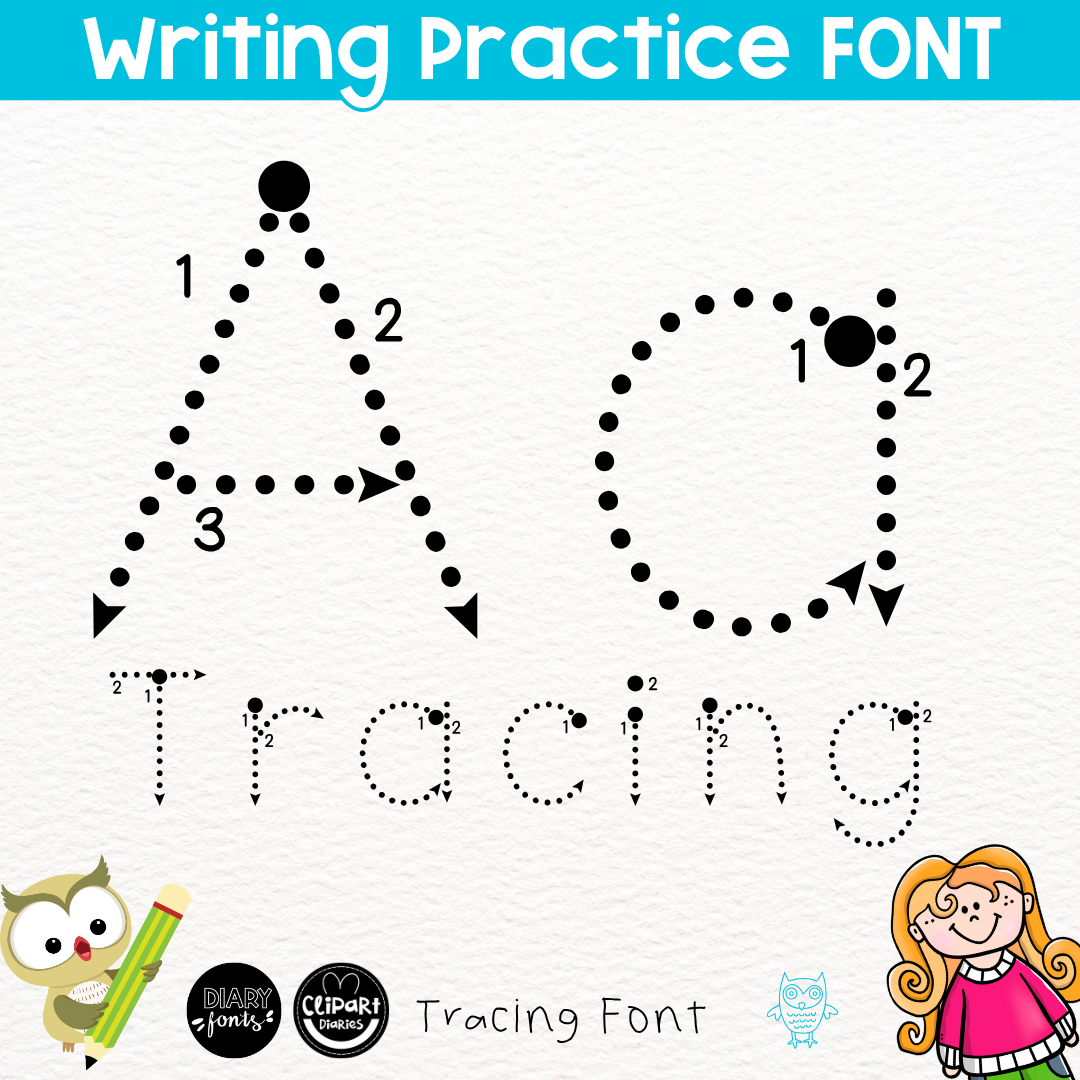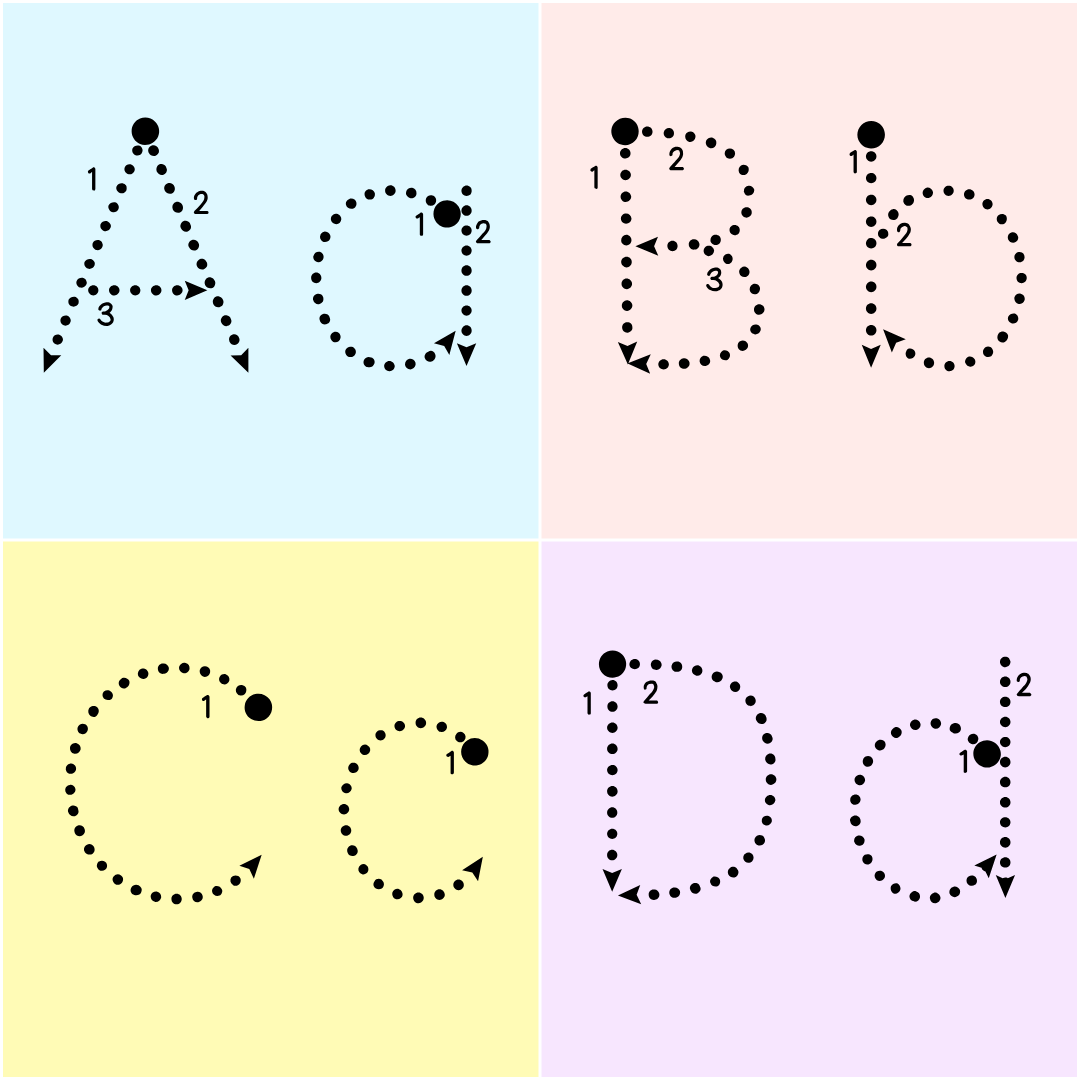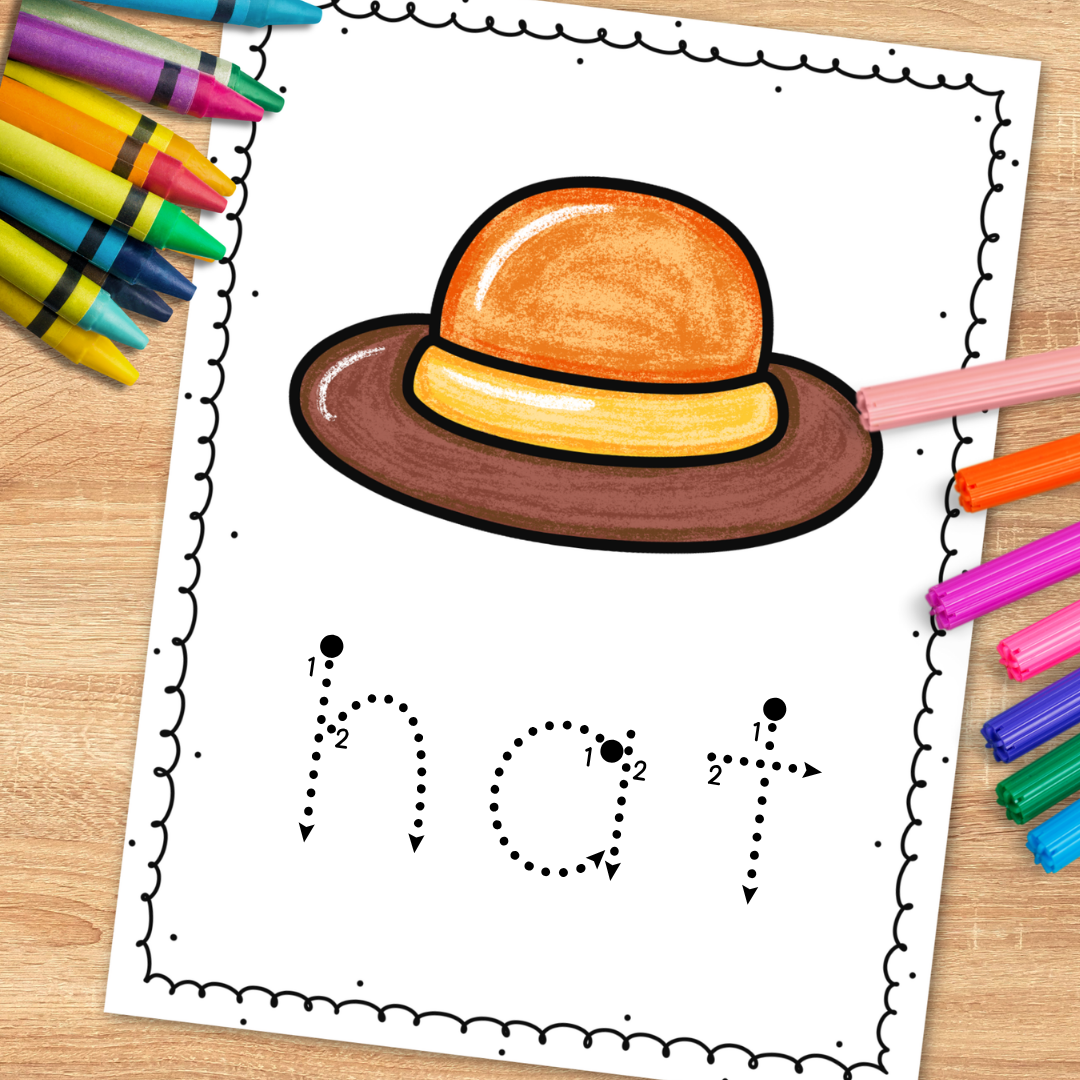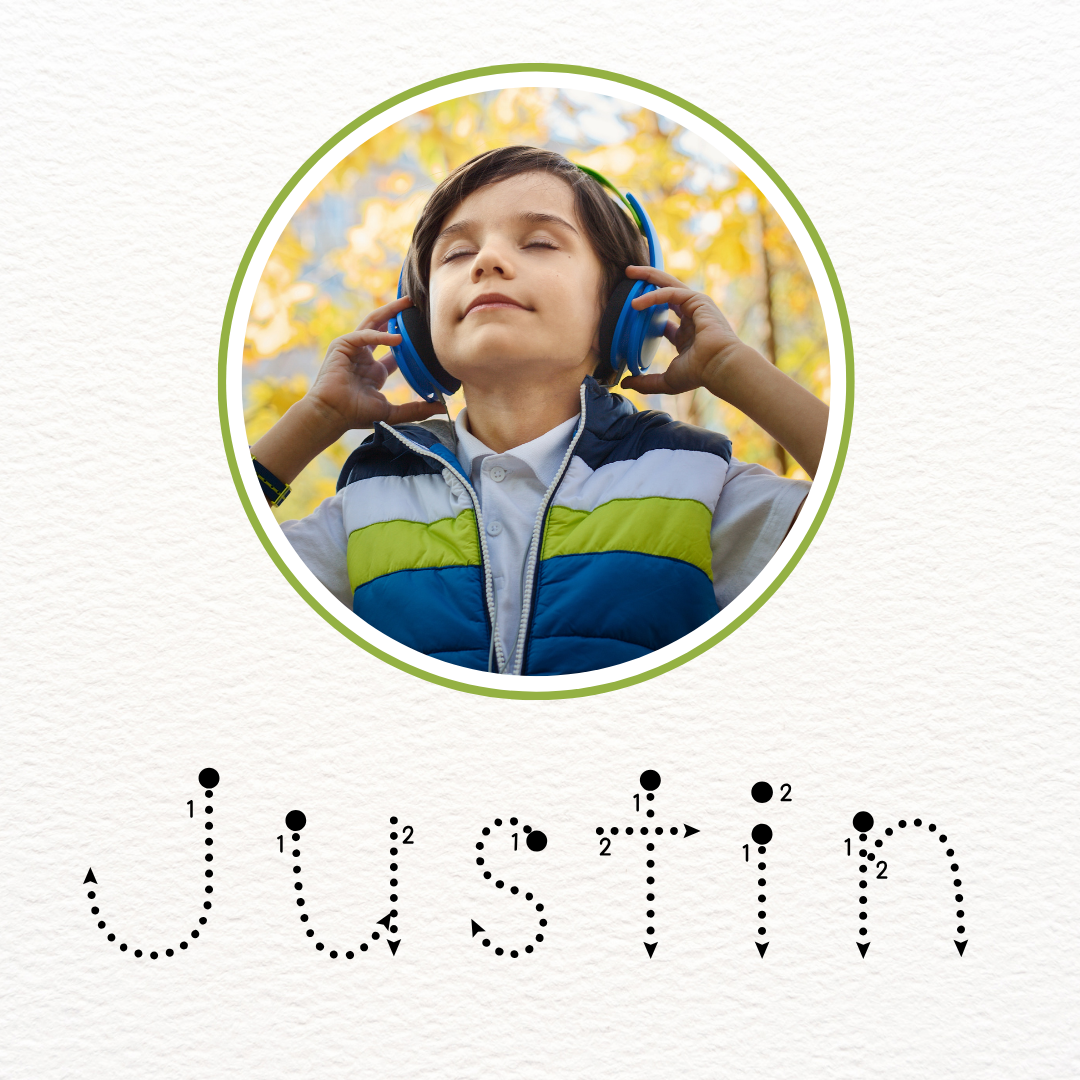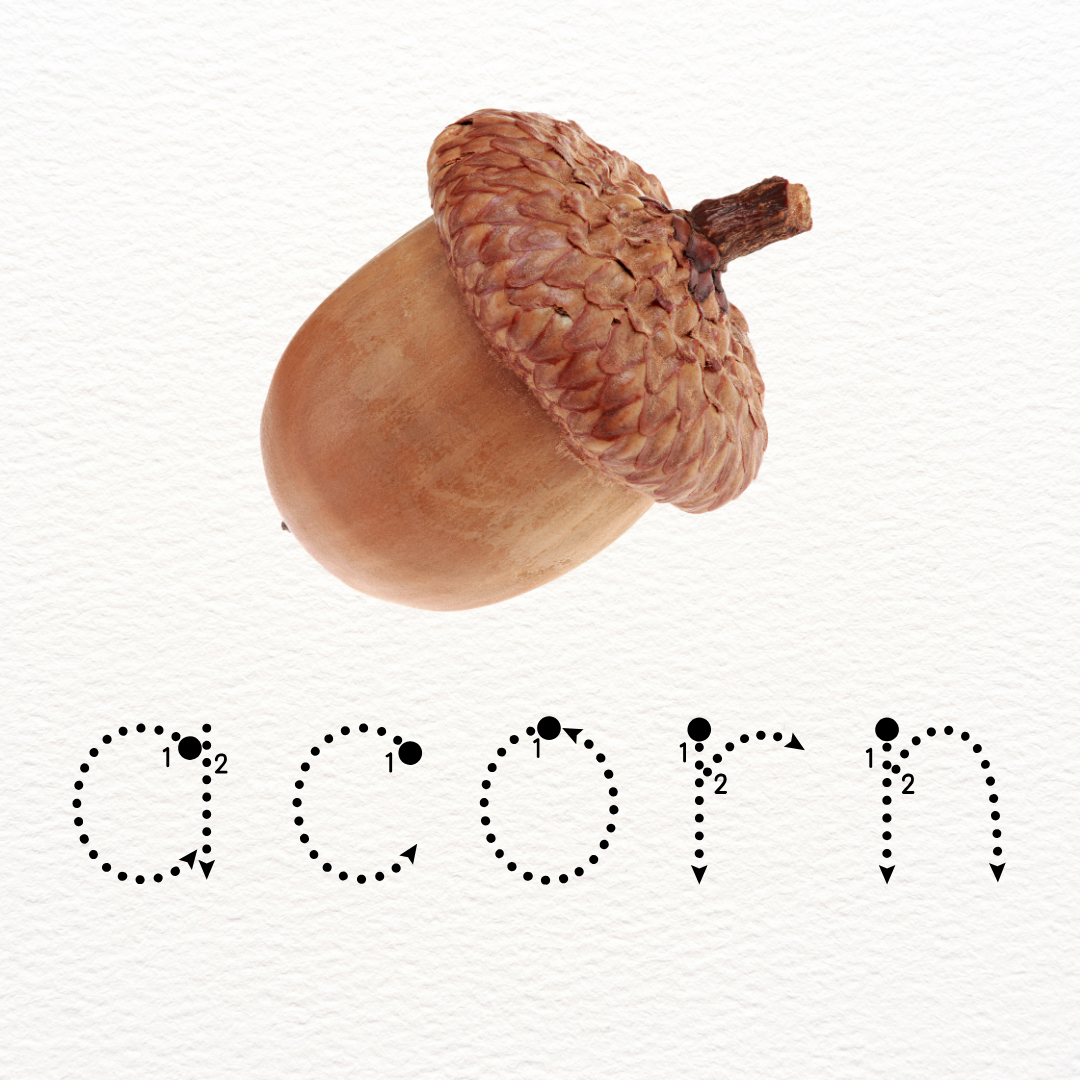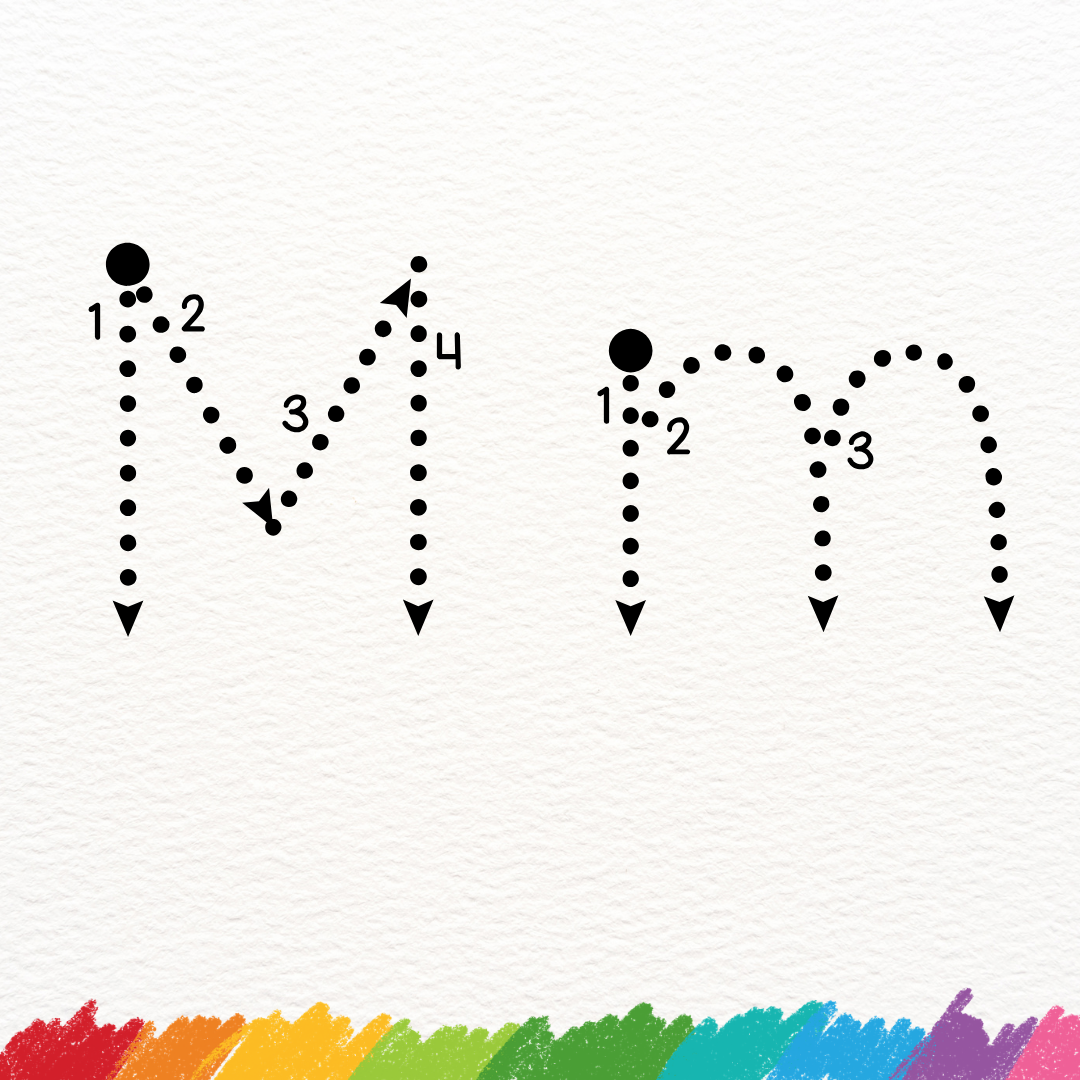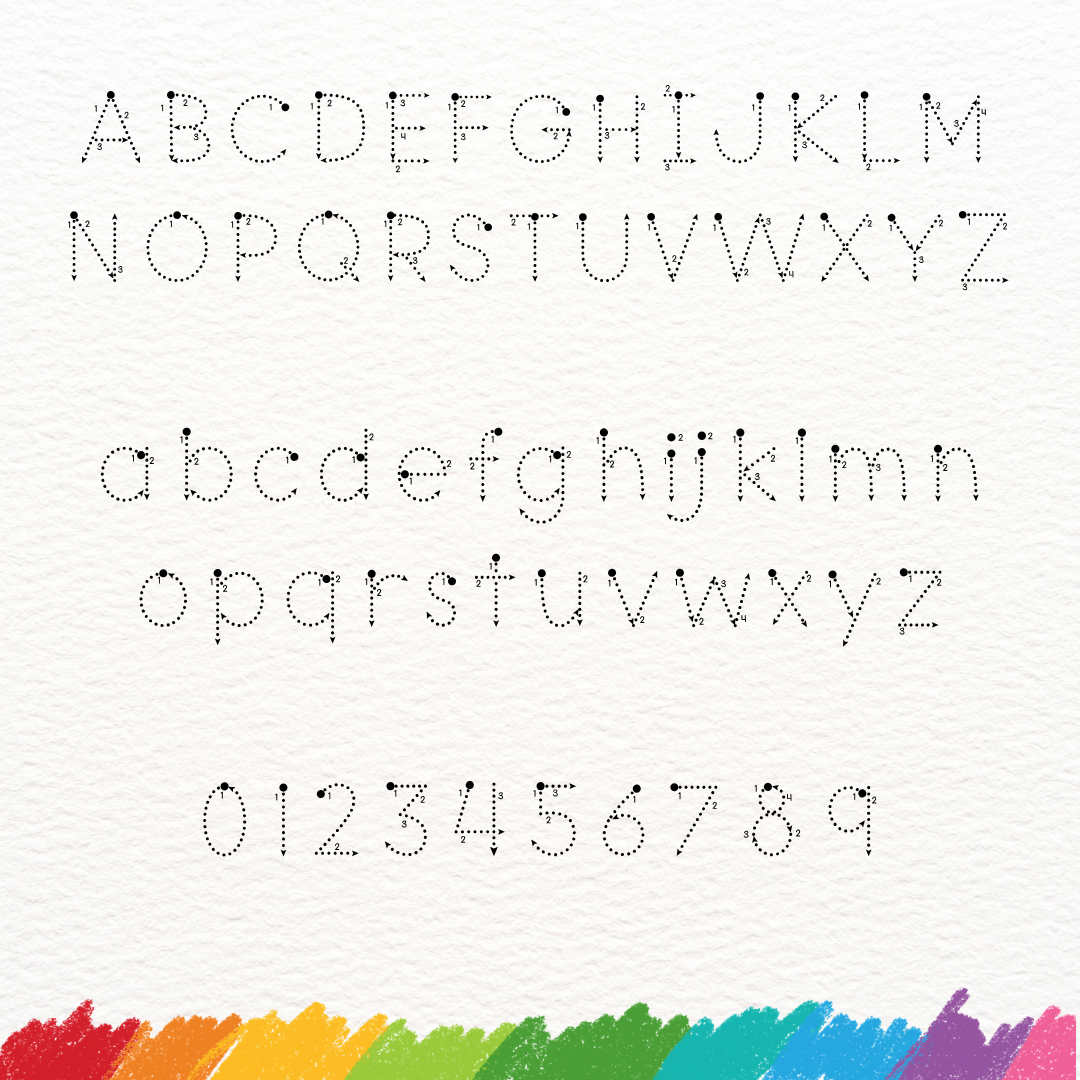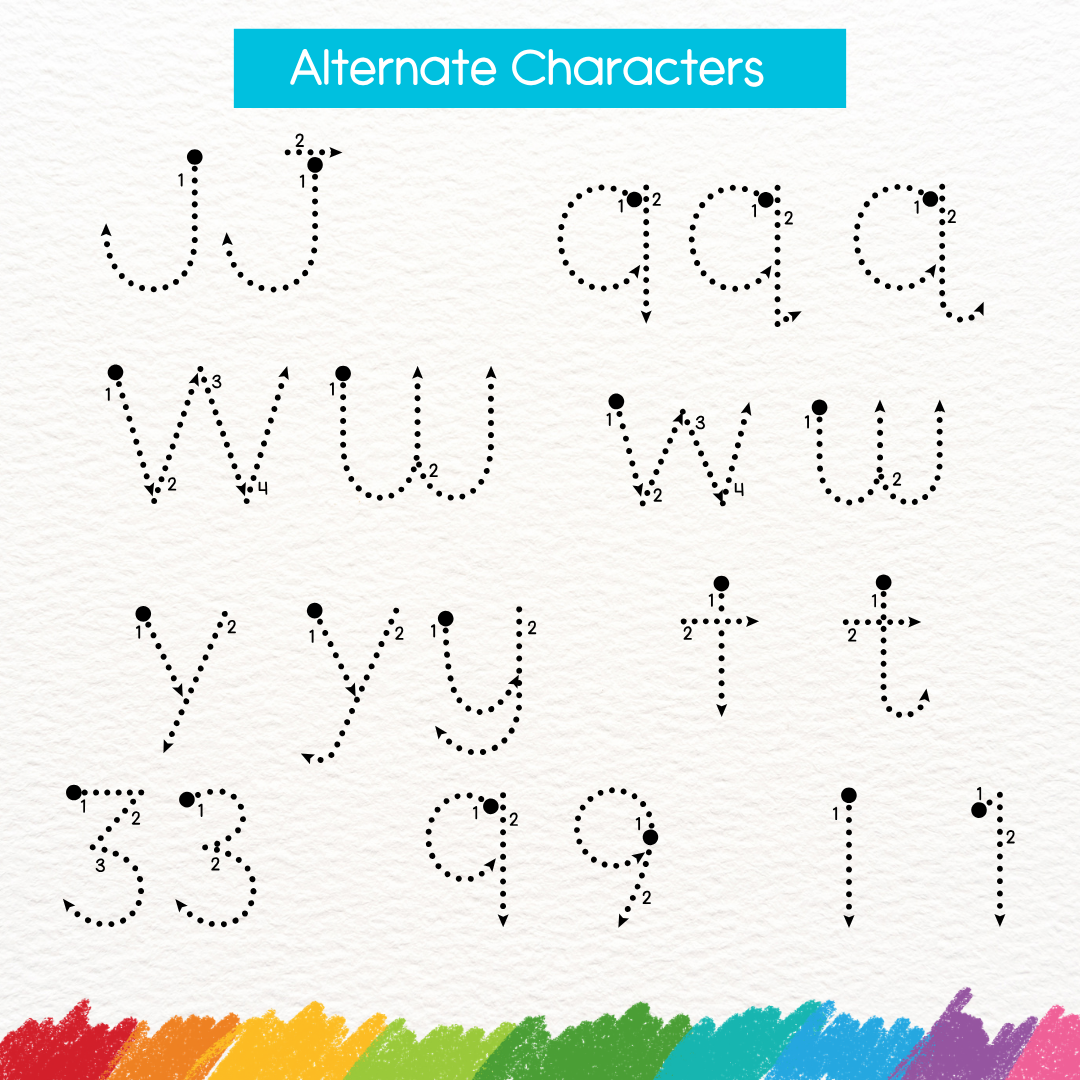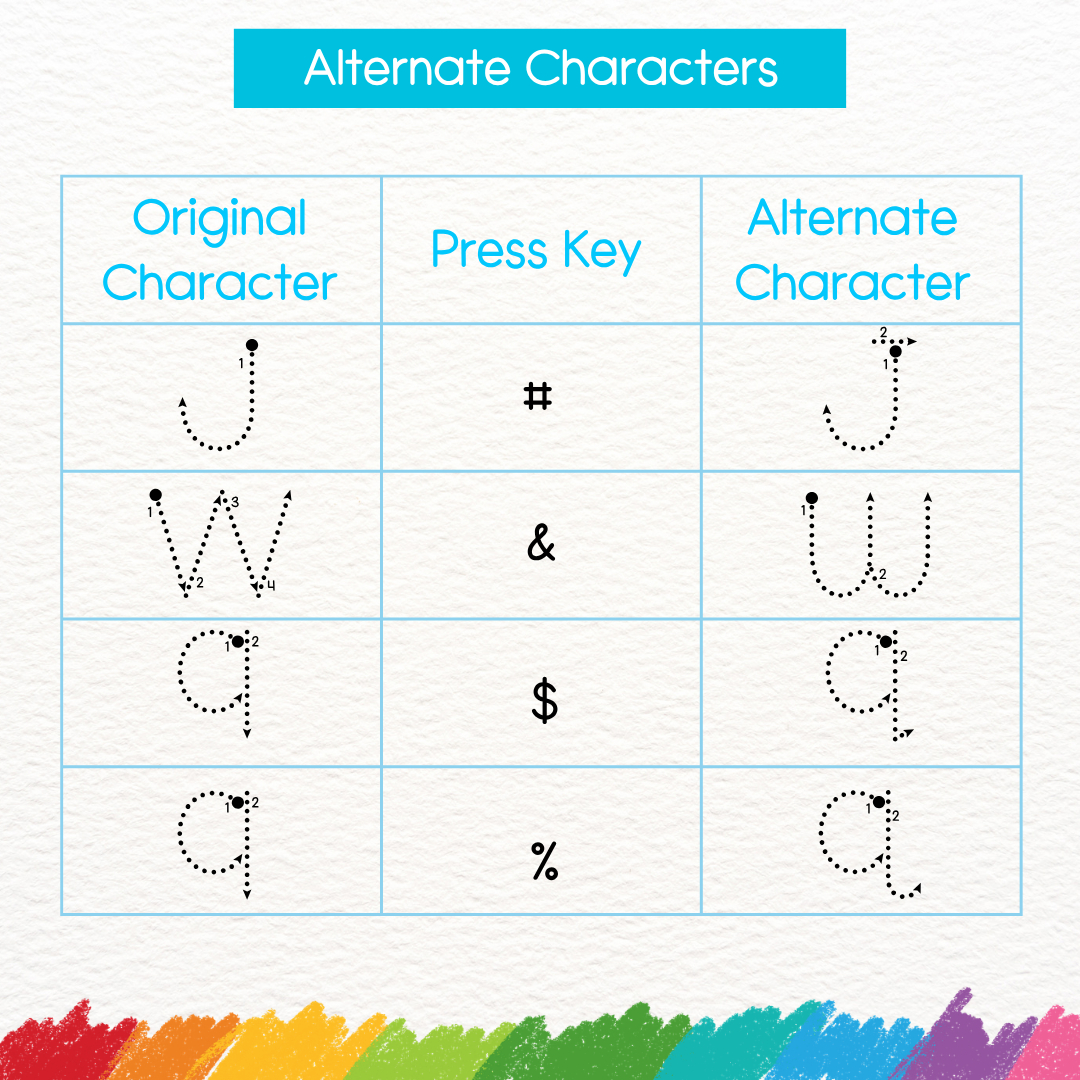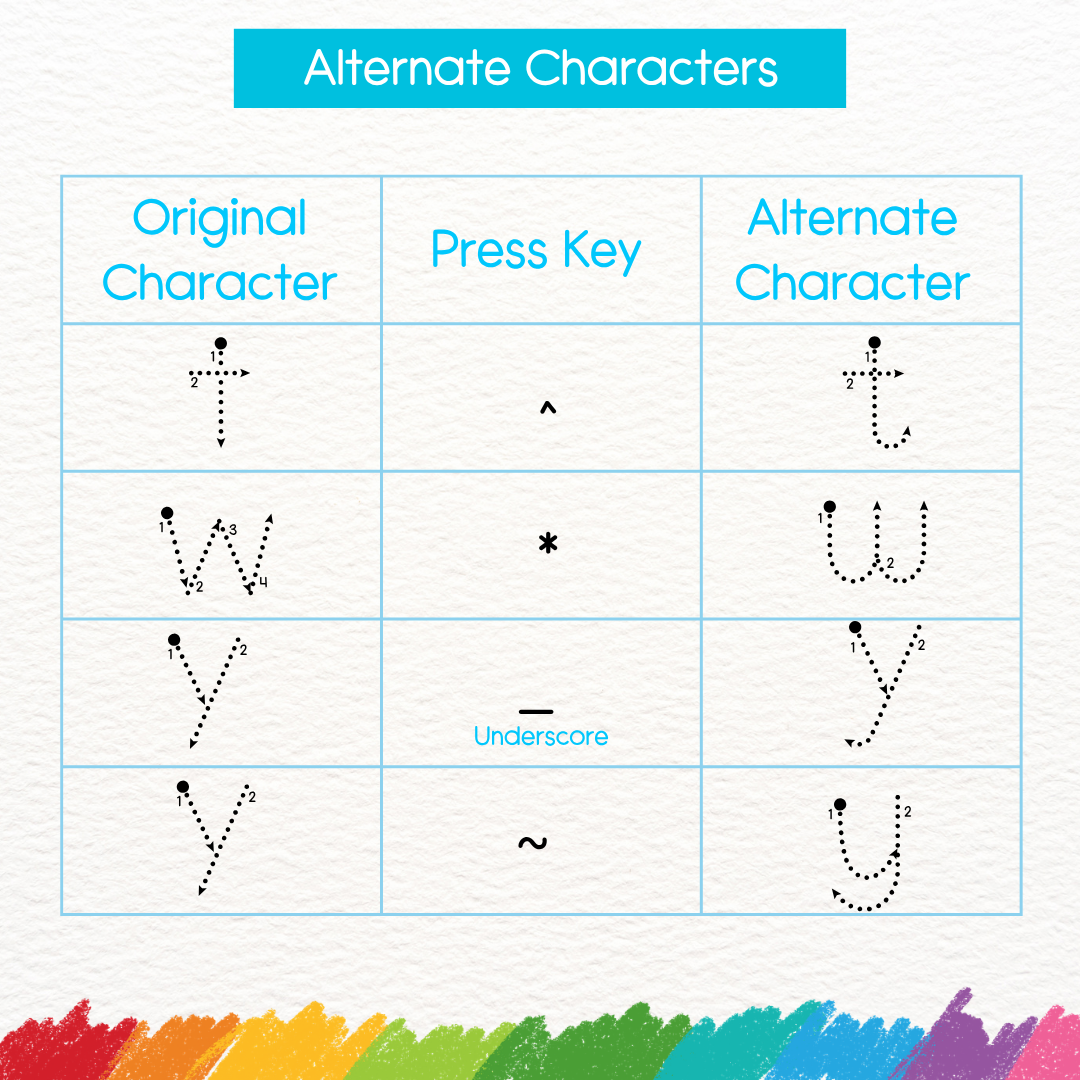
Dotted Tracing Font with Starting Dots, Directional Arrows and Number Guides for Handwriting Practice – Diary Grade Dots 3 – COMMERCIAL USE LICENSE
This font has dotted letters with starting dots, directional arrows, and number guides, which are perfect for tracing and fine motor activities. This set includes all capital letters, small letters, and numbers best for alphabet tracing, toddler tracing, name tracing, letter recognition letter tracing, and number tracing exercises worksheets.
Create fun and engaging activities for kids to trace letters with this neat handwriting font!